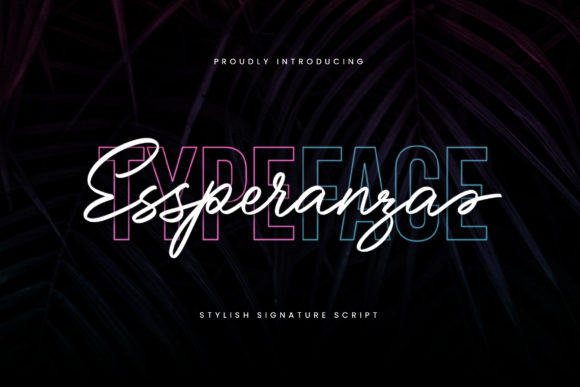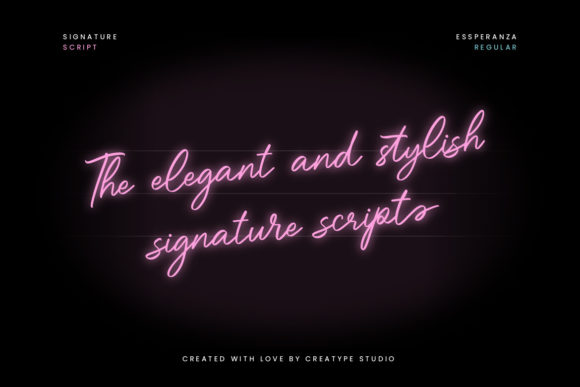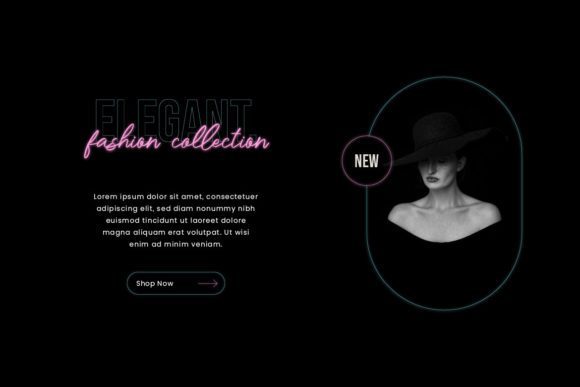
Essperanza Font
About Essperanza Font
Essperanza is a dainty and stylish script font, featuring a lovely flow. This font is PUA encoded which means you can access all of the glyphs and swashes with ease!